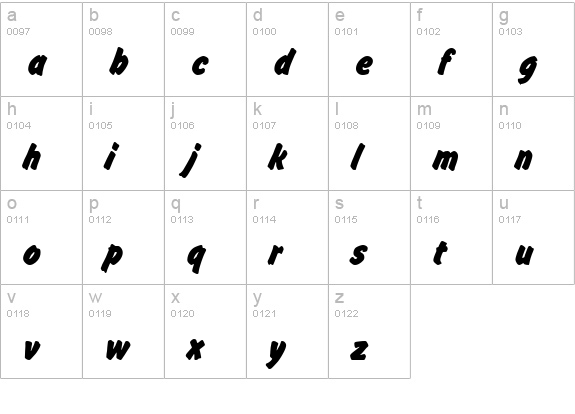
FlashDBol Font Details
Introducing FlashDBol font - a bold and dynamic typeface that exudes energy and modernity. With its sleek lines and sharp edges, FlashDBol font is perfect for creating eye-catching designs that demand attention. Whether used for headlines, logos, or posters, this font is sure to make a statement. What's even better is that FlashDBol font is available for free download at FontsMarket.com. That's right, you can add this versatile font to your collection without any cost. So why wait? Download FlashDBol font today and unleash your creativity with this powerful and stylish typeface.